Belove Melody is a refined and sophisticated serif font exuding timeless elegance. Its graceful curves and sharp serifs evoke a sense of classical beauty, making it perfect for elegant branding, editorial design, and luxury packaging. With its versatility and charm, Belove Melody adds a touch of sophistication to any project.
Black Autumn is a refined and sophisticated serif font exuding timeless elegance. Its delicate serifs and balanced proportions lend a touch of class to any project, from editorial design to branding. With its versatility and charm, Black Autumn is perfect for conveying sophistication and style in any context.
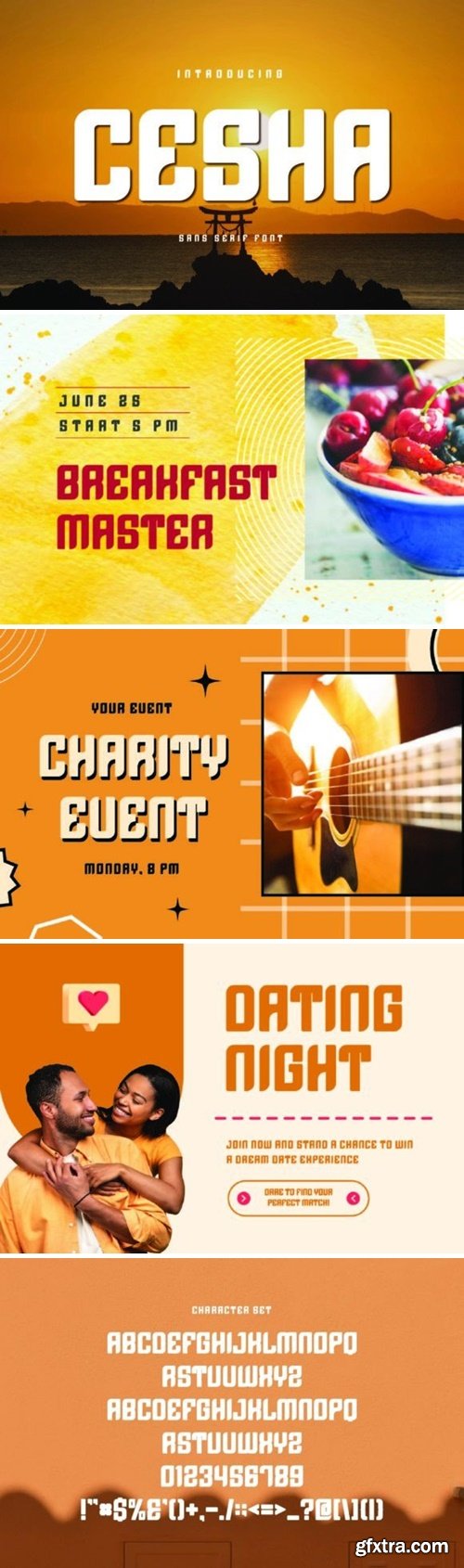
Cesha is a sleek and powerful sans-serif typeface that commands attention with its bold presence. Its clean lines and strong strokes exude confidence and modernity, making it ideal for headlines, branding, and any design that requires a bold statement with a contemporary edge.
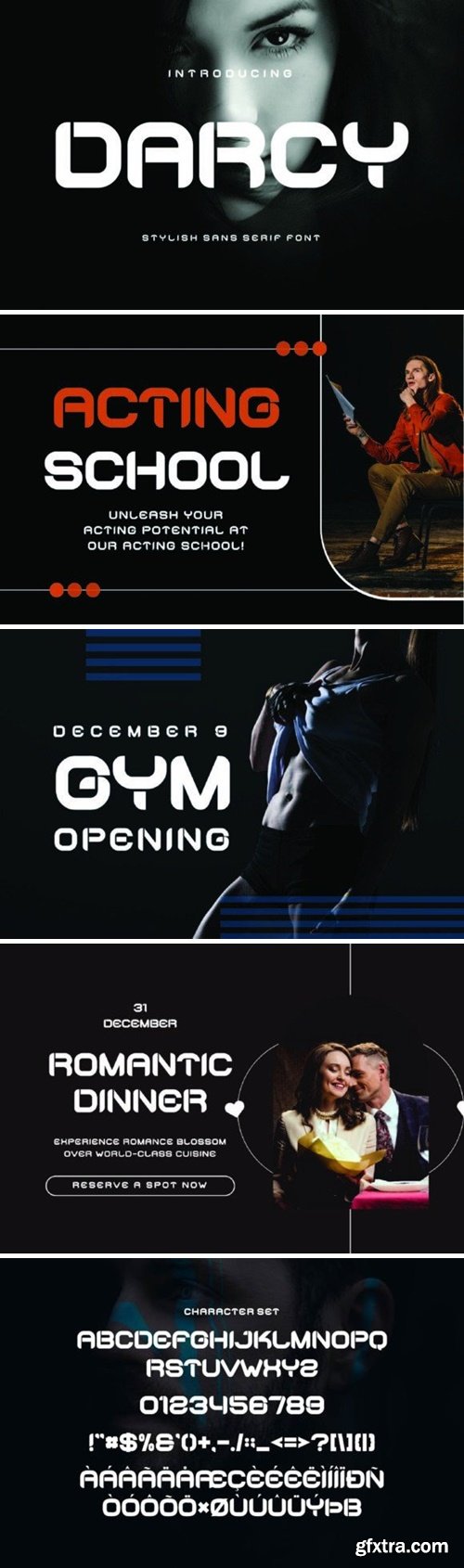
Darcy is a sleek and sophisticated sans-serif typeface designed for modern applications. With its clean lines and balanced proportions, Darcy exudes a sense of elegance and style. Perfect for branding, editorial design, and advertising, this versatile font is sure to make a statement in any project.
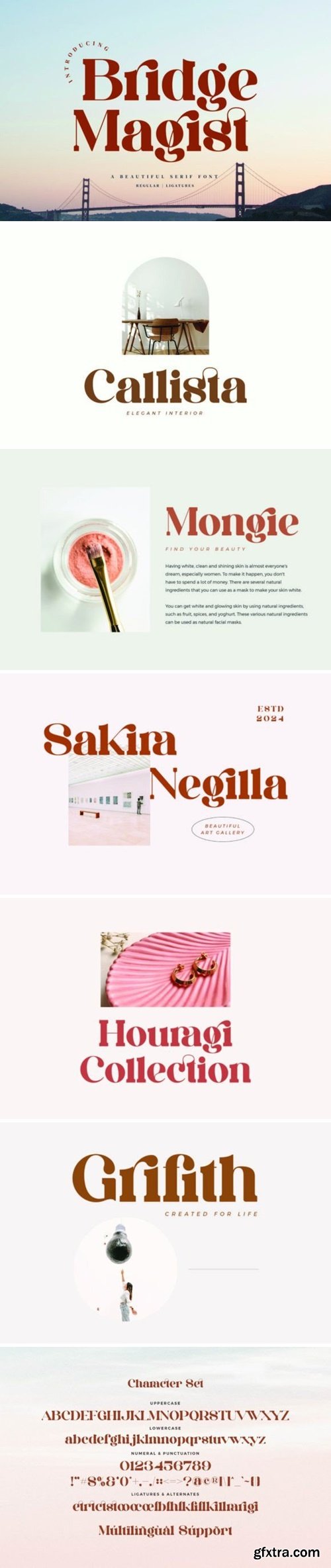
Bridge Magist is a stylish and elegant serif font that stands out with distinctive grace. Meticulously crafted letterforms embody timeless sophistication, setting it apart. Ideal for projects demanding a refined and unique typeface, Bridge Magist adds a touch of classic elegance and individuality to your designs.
Karina is a stylish and elegant serif font that brings elegance to your text. With its sleek lines and sophisticated curves, it adds a touch of refinement to any project.
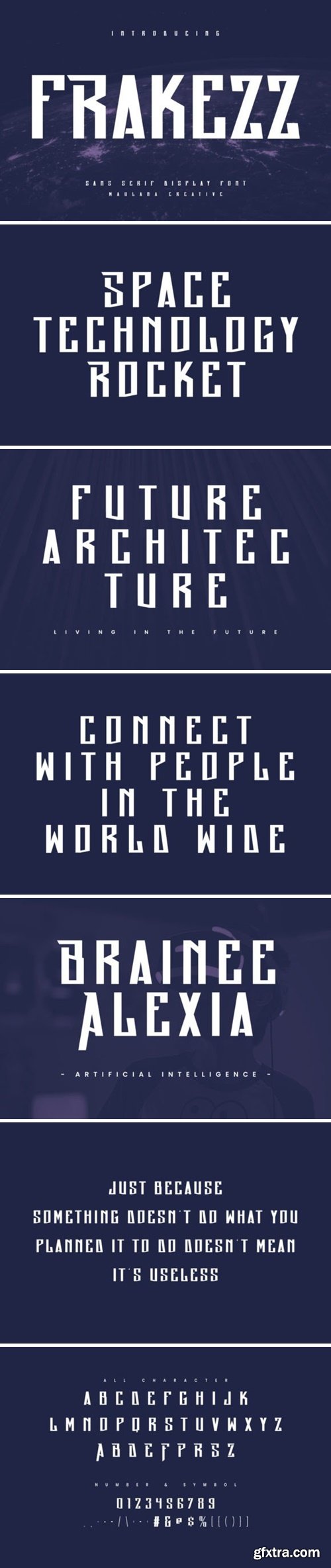
Frakezz is a bold and dynamic sans-serif typeface that commands attention with its strong presence and modern appeal. Its clean lines and robust letterforms make it perfect for headlines, posters, and branding projects where a confident and impactful typographic statement is desired.
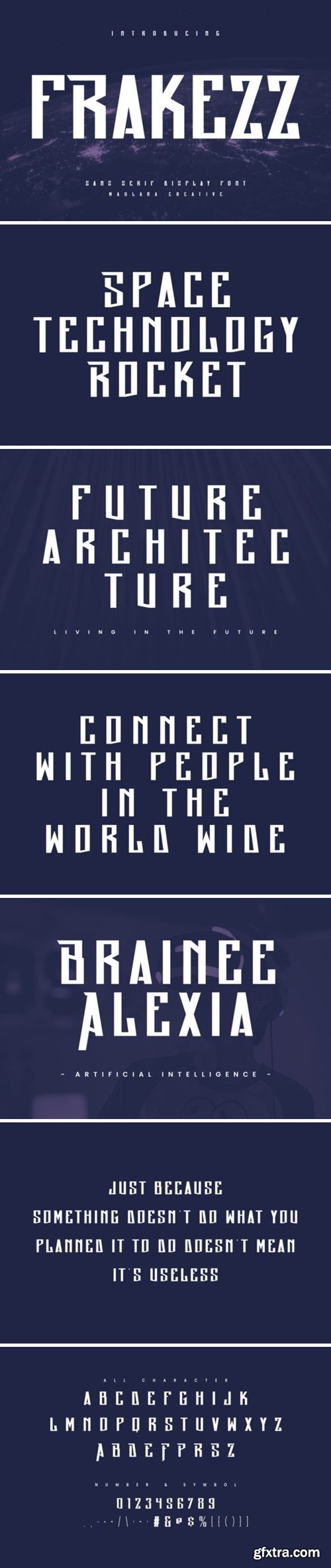
Frakezz is a bold and dynamic sans-serif typeface that commands attention with its strong presence and modern appeal. Its clean lines and robust letterforms make it perfect for headlines, posters, and branding projects where a confident and impactful typographic statement is desired.
Daddy Love is a lovely script font that embodies elegance and grace. With its flowing, cursive letterforms and delicate details, this font exudes a timeless charm. Ideal for projects that require a touch of romance and sophistication, Daddy Love adds a touch of beauty and allure to your creative expressions.
MN Raghford - Condensed Sans Serif Typeface
Blinka is a charming and elegant serif typeface designed to add a touch of sophistication to various design projects. With its beautiful characteristics, Blinka conveys a classic yet contemporary impression. Its smooth serif lines and balanced proportions exude luxury and professionalism. Each letter is meticulously crafted, showcasing delicate details and proportional shapes.
The “Insight Melody” font is a symbol of elegance and uniqueness that captivates. Crafted with detailed design harmony, each letter depicts profound beauty and captivating intelligence. With a classic touch combined with modern nuances, this font creates an atmosphere that is elegant yet retains its unique authenticity.
Marionte is a classic font with a modern and luxurious style, many ligatures, and alternatives that you can use for your designs, and this will make your design more stunning and stand out. This serif font contains a number of ‘lowercase’ (A, E, U, I, O) and Uppercase alternate characters. this can be accessed by enabling ‘Stylistic Alternates’ in any software that supports OpenType.
Introducing Crypto Hunter – a font of the future that captivates with its allure. Designed with sophistication and luxury in mind, this all-caps typeface comes in both regular and italic variations. Each character exudes a mesmerizing elegance, appearing as if gracefully split yet retaining an undeniable beauty. With its unique design, Crypto Hunter effortlessly embodies a futuristic essence, making it the perfect choice for projects seeking a modern and advanced aesthetic.
Crusher Croock is a dynamic and edgy typeface inspired by graffiti artistry. Its bold strokes and rugged edges capture the raw energy of street culture. Perfect for eye-catching headlines, urban posters, and contemporary designs that demand a gritty, urban aesthetic with a touch of rebellious flair.
Inject an edge of evocative intensity into your creative work with the Black Jacket font. Echoing vibes of heavy metal and machine rock, this striking display font offers a grungy charm that effortlessly elevates logos, headlines, corporate identities, and brand narratives. Find its true potential within the music and apparel industries, or use it to infuse a rugged vitality into your posters, movies, and games. Perfect for an array of mediums, from print to digital, it enriches magazines, books, comics, and an array of online platforms, including YouTube, Instagram, and websites. Black Jacket is your go-to choice to make every word shout and roar in your trailblazing design projects.
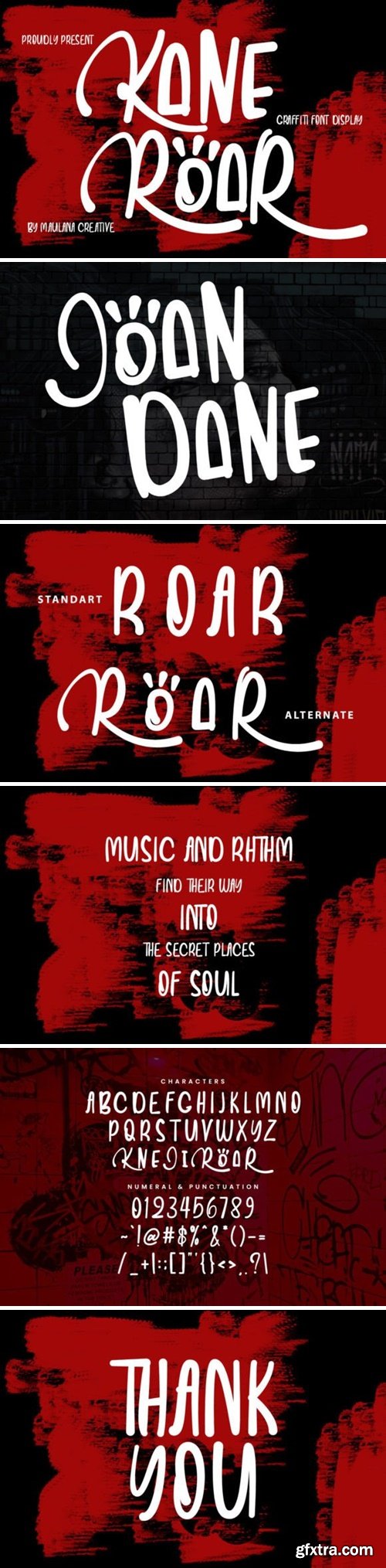
Kane Roar is an incredibly cool and unique display font in a handwritten style. It has a modern yet whimsical style and it will undoubtedly immerse your designs into a magical world.
Unleash the vibrant energy of the ’60s and ’70s with Tanamera, the ultimate psychedelic type display font that channels the essence of retro vintage style. Whether you’re designing a groovy poster, an album cover, or revamping your branding, Tanamera is your ticket to a kaleidoscopic journey through time.